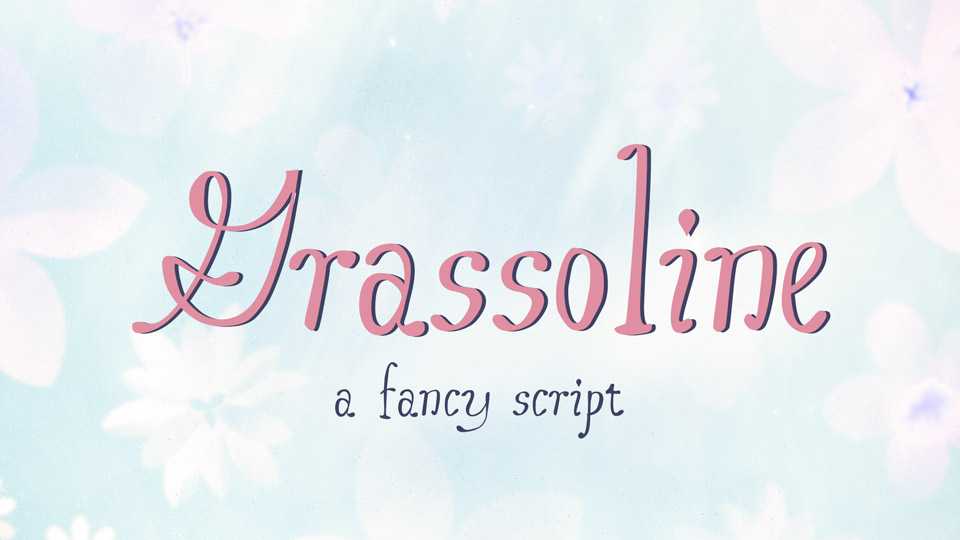
Download Grassoline font, a fairy handwritten script with pretty decorative letters. Grassoline font is perfect for craft projects, cards, quotes and other artworks.
Designer: Jason Reed